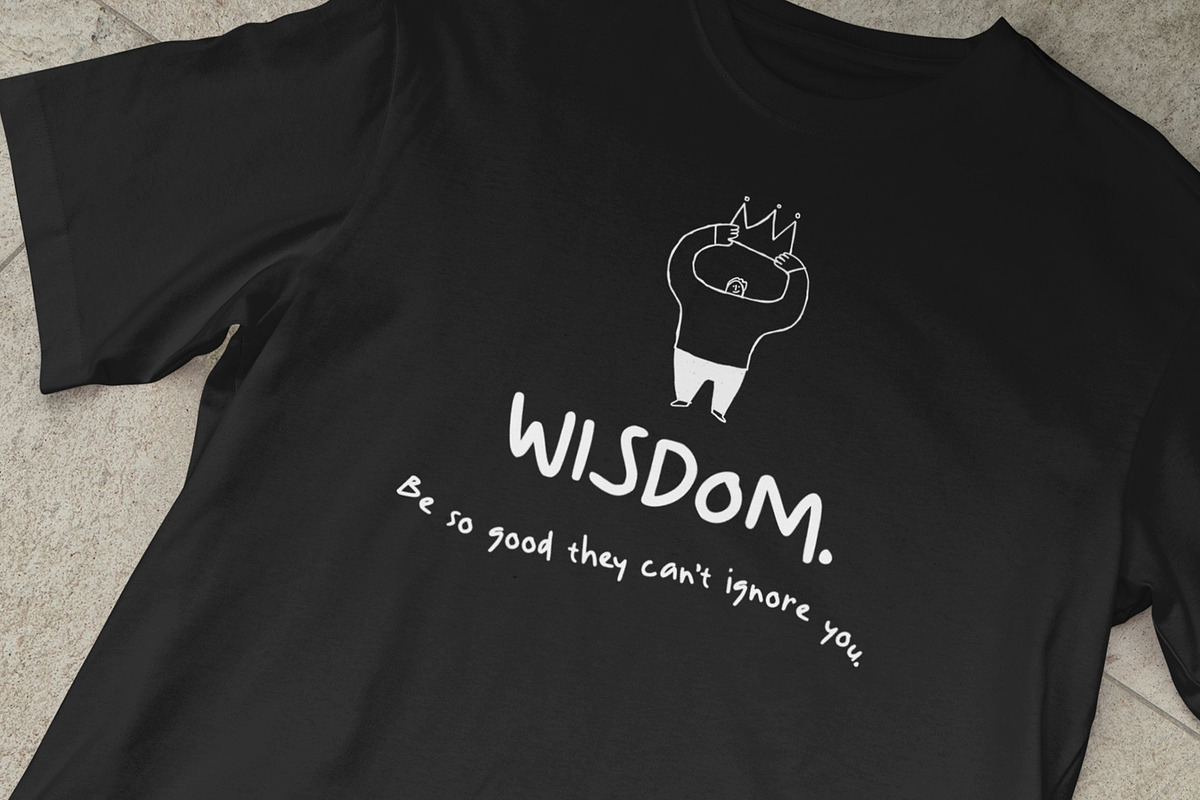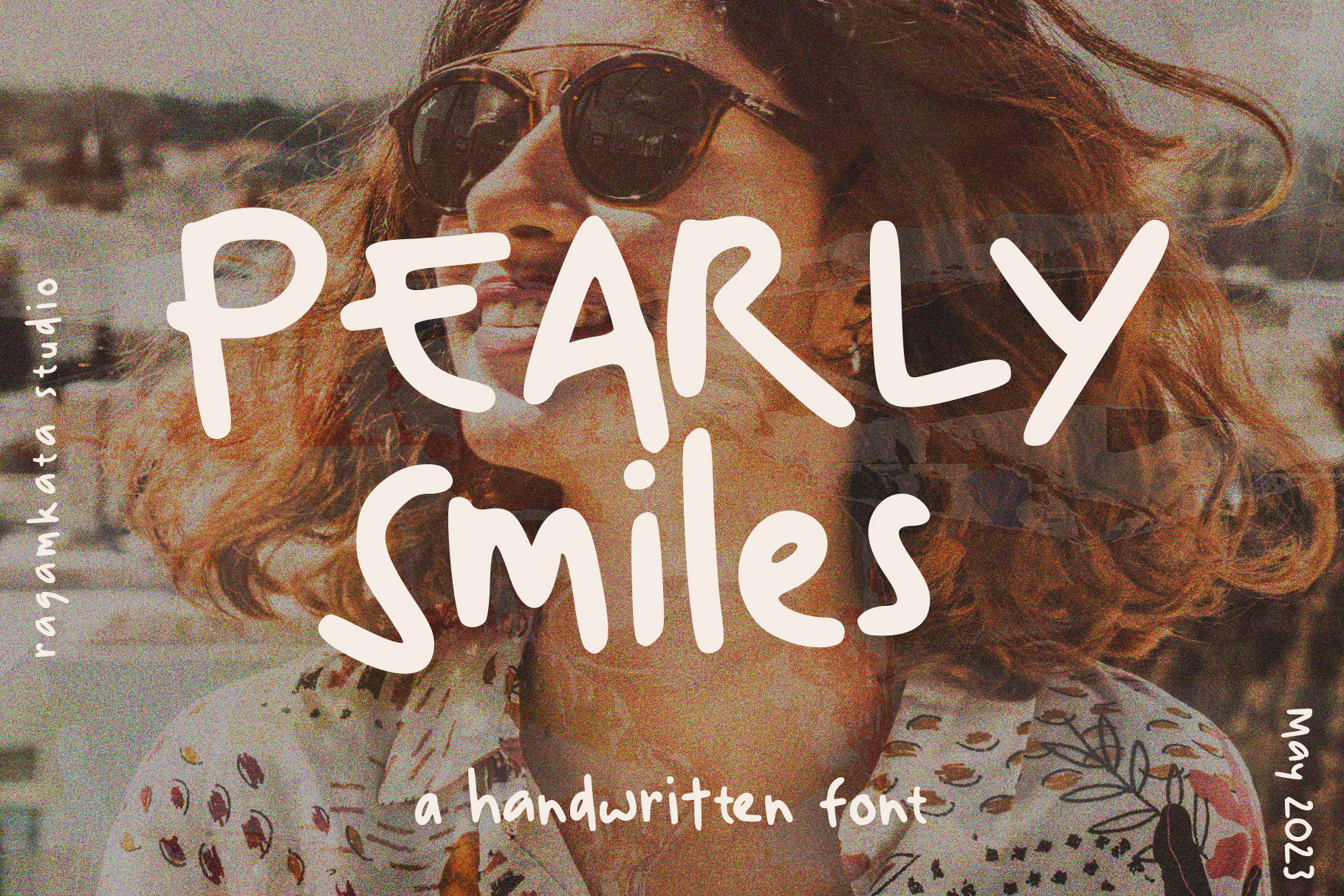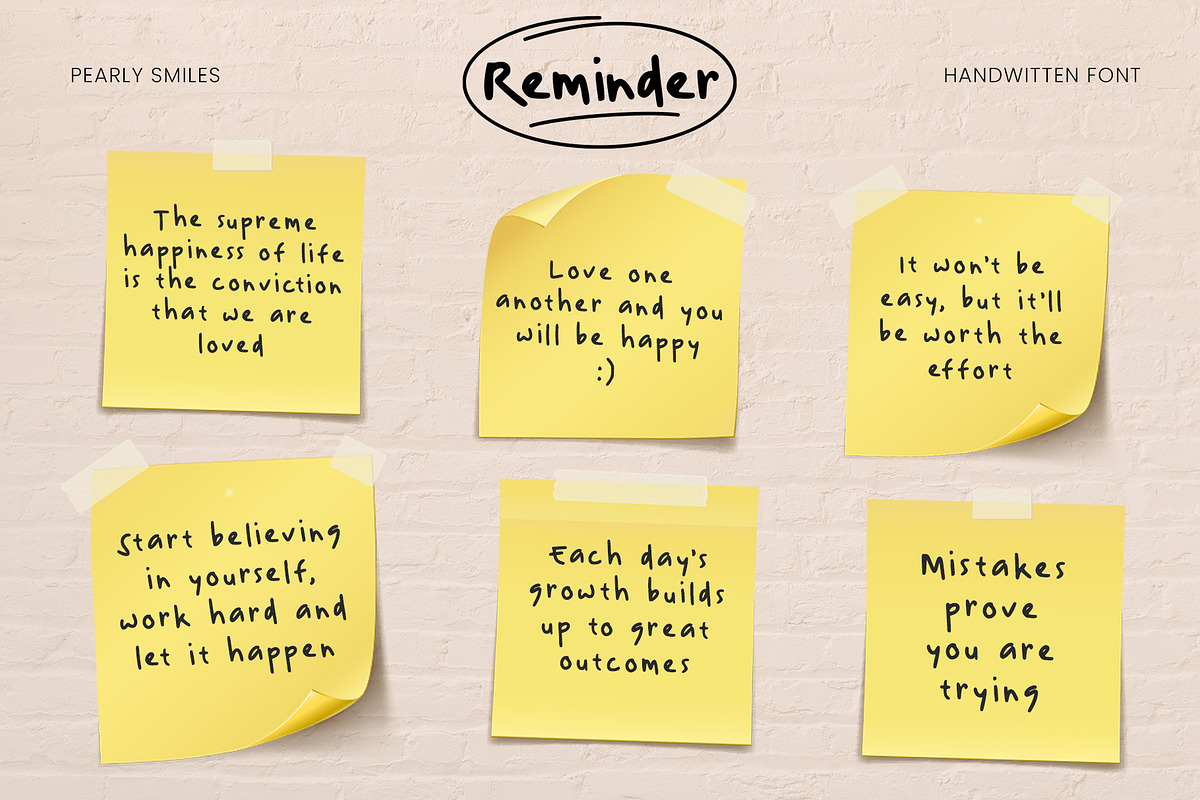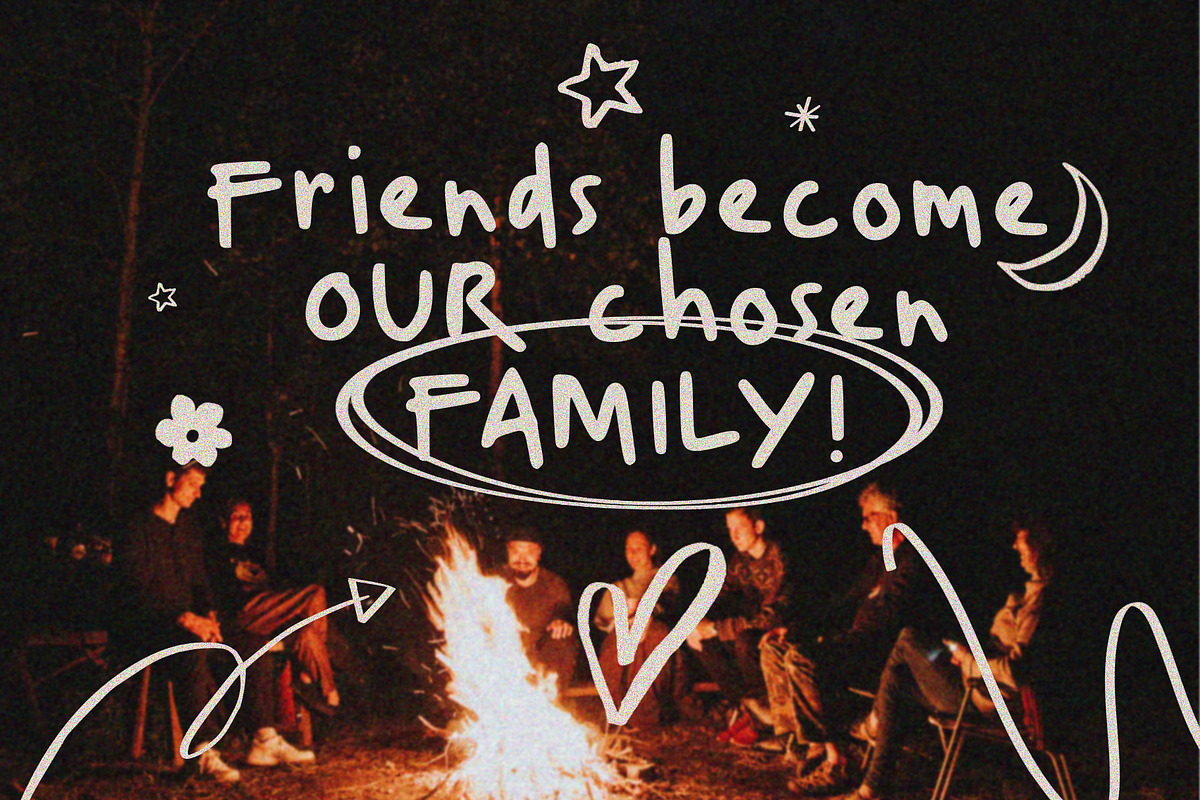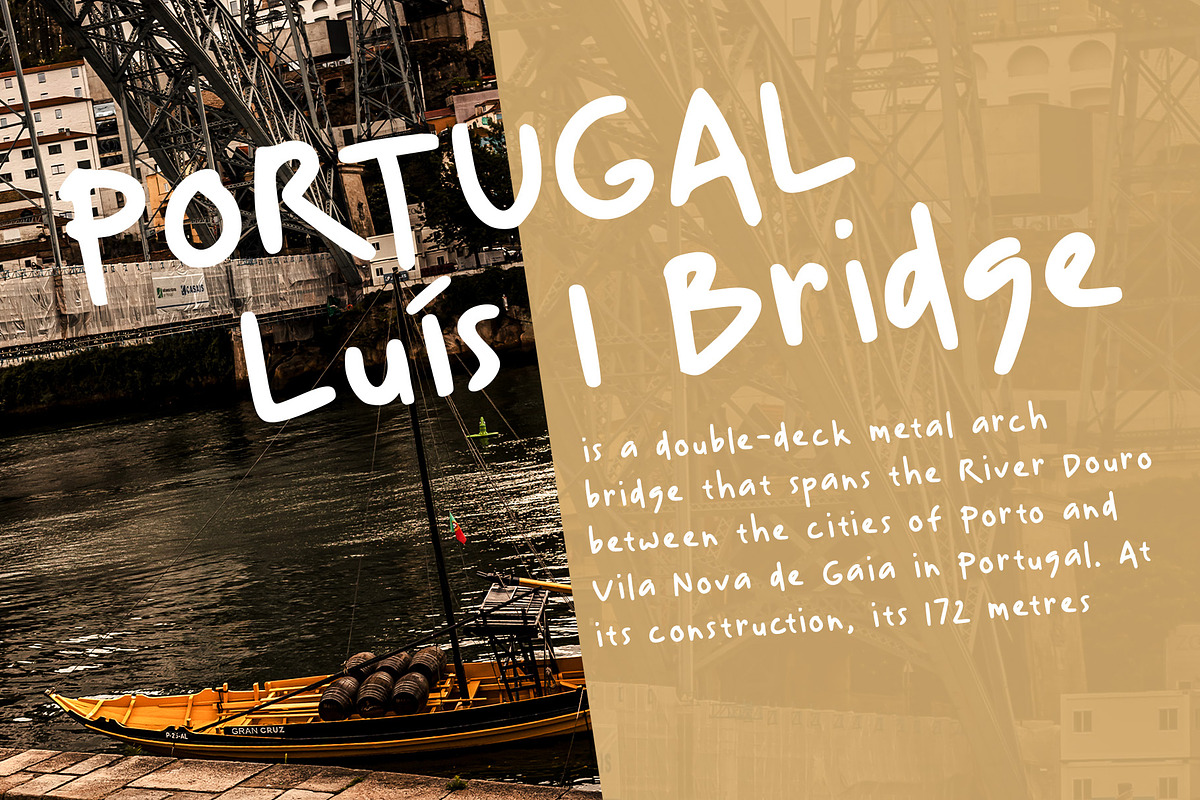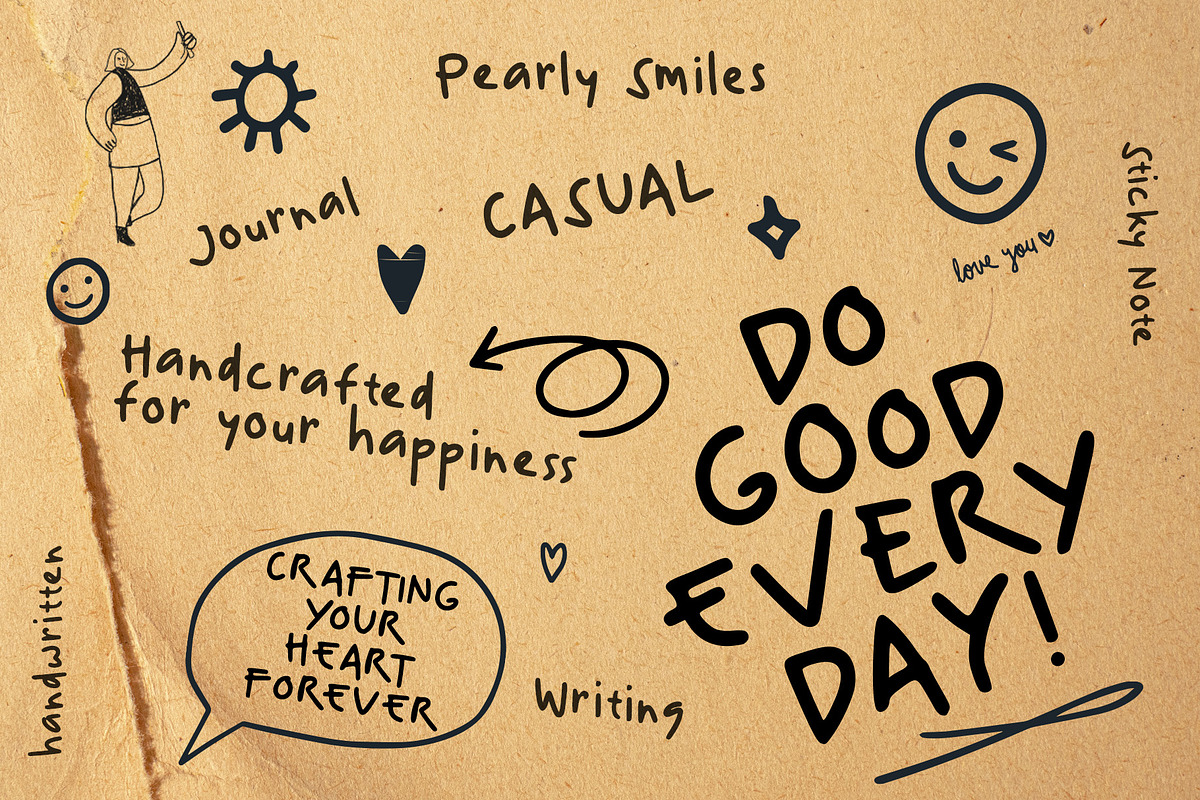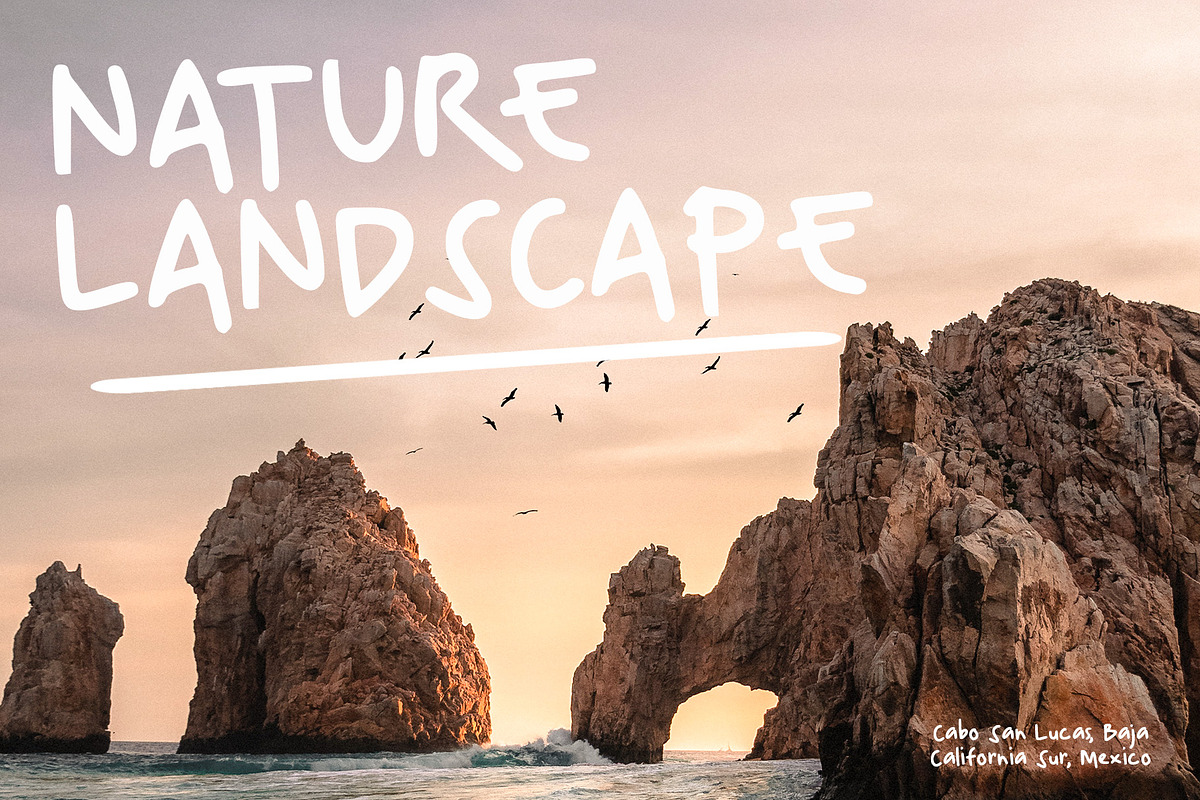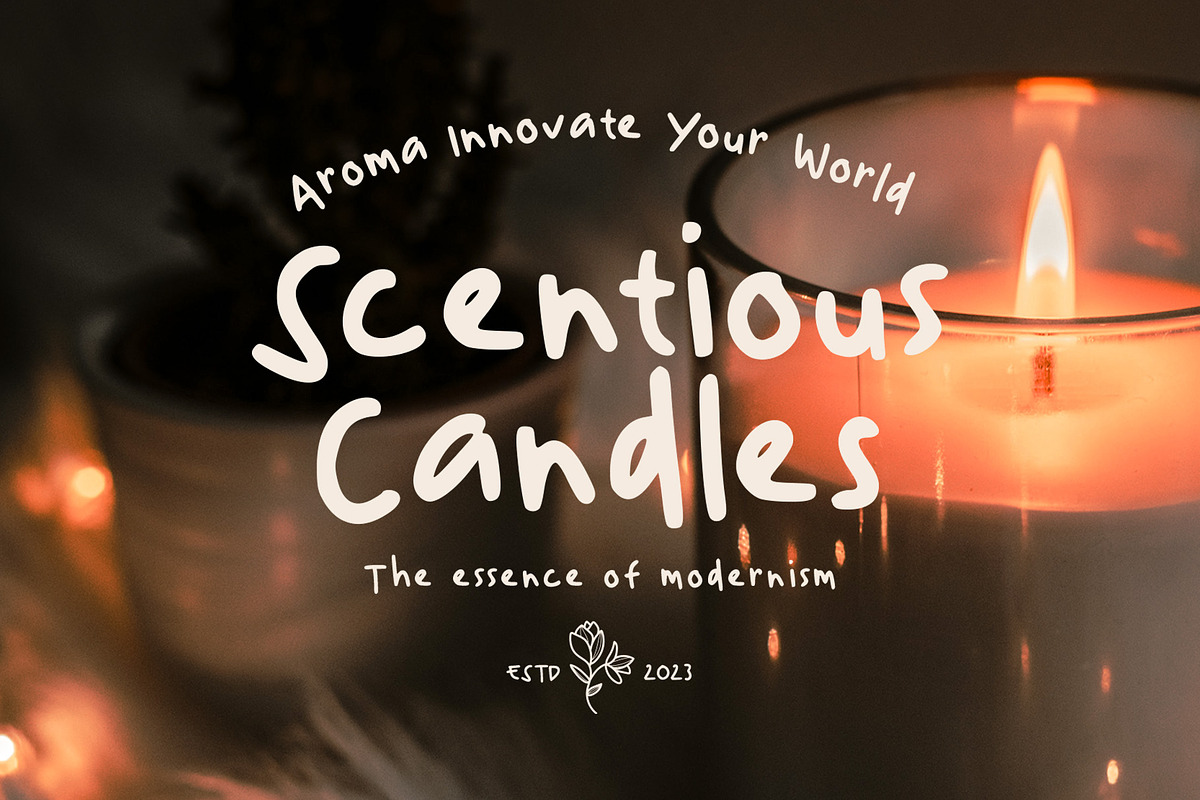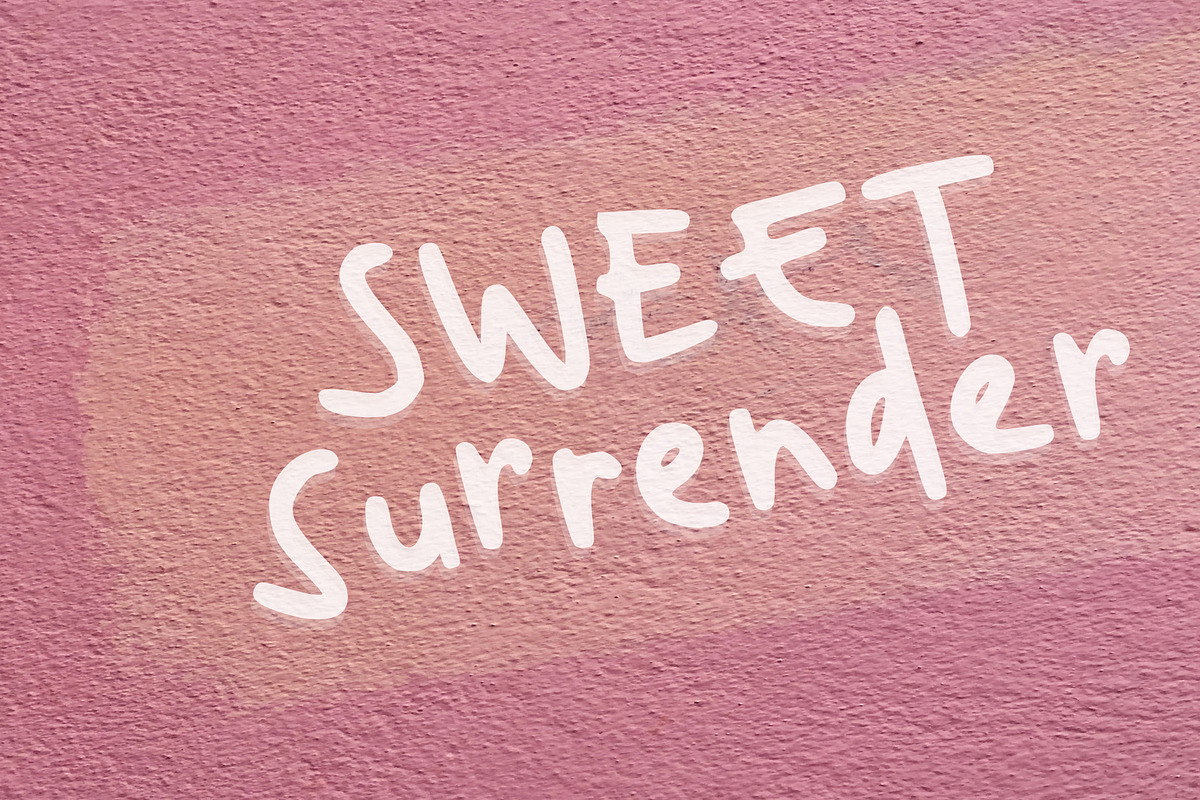
Pearly Smiles - Delightful Font
"Pearly Smiles," a delightful handwritten font meticulously crafted with love and attention to detail. This font encapsulates the essence of joy and brings a touch of whimsy to your design projects.
"Pearly Smiles" embodies the playful nature of handwritten script, with its charming curves and natural stroke variations. Every letter reflects the genuine warmth and sincerity of my personal handwriting, infusing your designs with a sense of individuality and happiness.
With its elegant yet cheerful style, "Pearly Smiles" is versatile and perfect for a wide range of creative applications. Whether you're designing logos, branding materials, invitations, greeting cards, or any project that calls for a lighthearted and personal touch, this font will add a touch of enchantment and personality.
The meticulously designed letterforms of "Pearly Smiles" ensure both legibility and artistic appeal. Its balanced proportions and thoughtfully crafted characters make it a pleasure to work with, whether on digital or printed mediums.